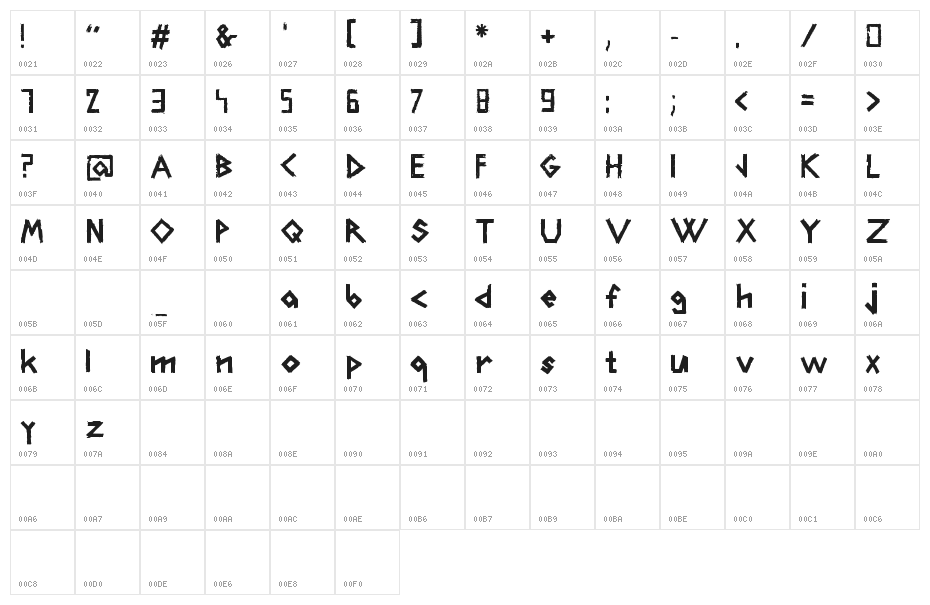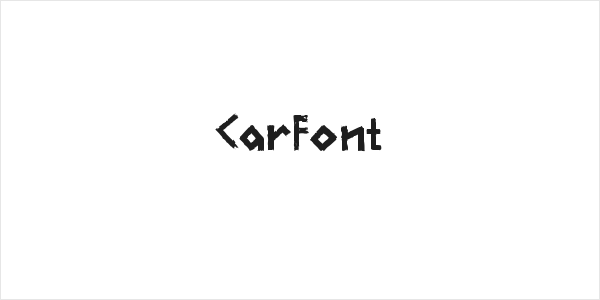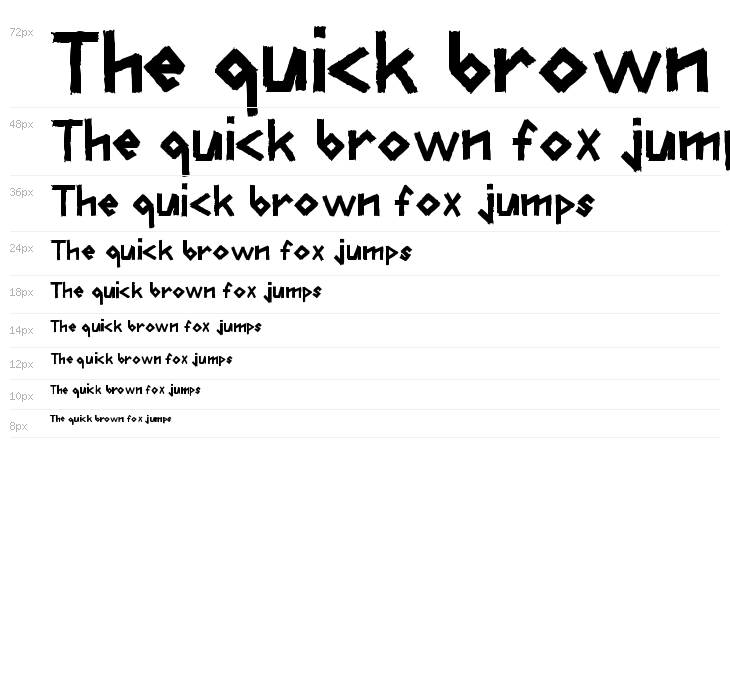
CarFont Font
CarFont Description
This font features a bold and edgy design with a distressed, grunge-like appearance. The characters are angular and sharp, giving off a rebellious and dynamic vibe. The uppercase and lowercase letters maintain a consistent style, with jagged edges and uneven strokes that add to its raw aesthetic. Numbers and special characters follow the same rugged theme, making the font suitable for projects that require a bold statement. The overall look is both modern and unconventional, perfect for grabbing attention.
| Overall Style | Modern, Edgy |
| Proposed Projects | Ideal for music album covers, streetwear branding, event posters, and video game graphics. |